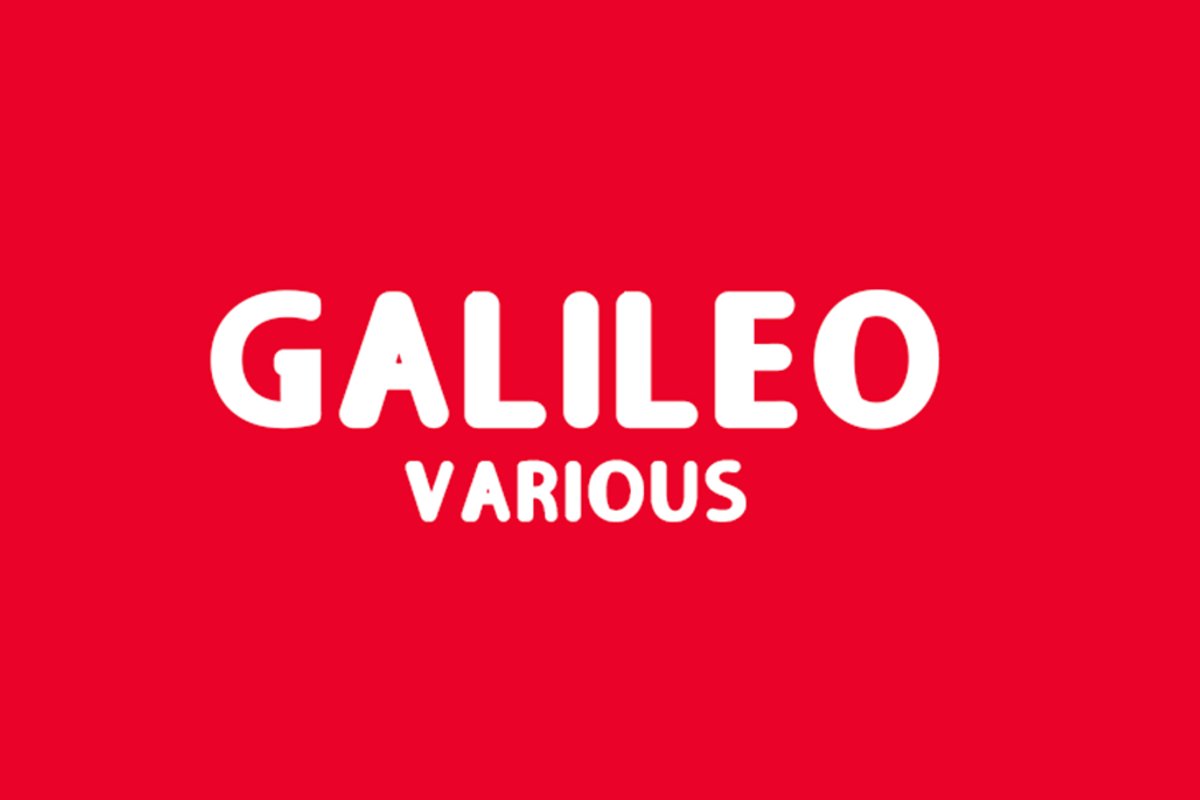
Galileo Various
Galileo Various is a distinct, whimsical sans serif that blends traditional influences into a contemporary aesthetic. Use Galileo Various to achieve an exquisite, yet subtle look and maximum versatility.